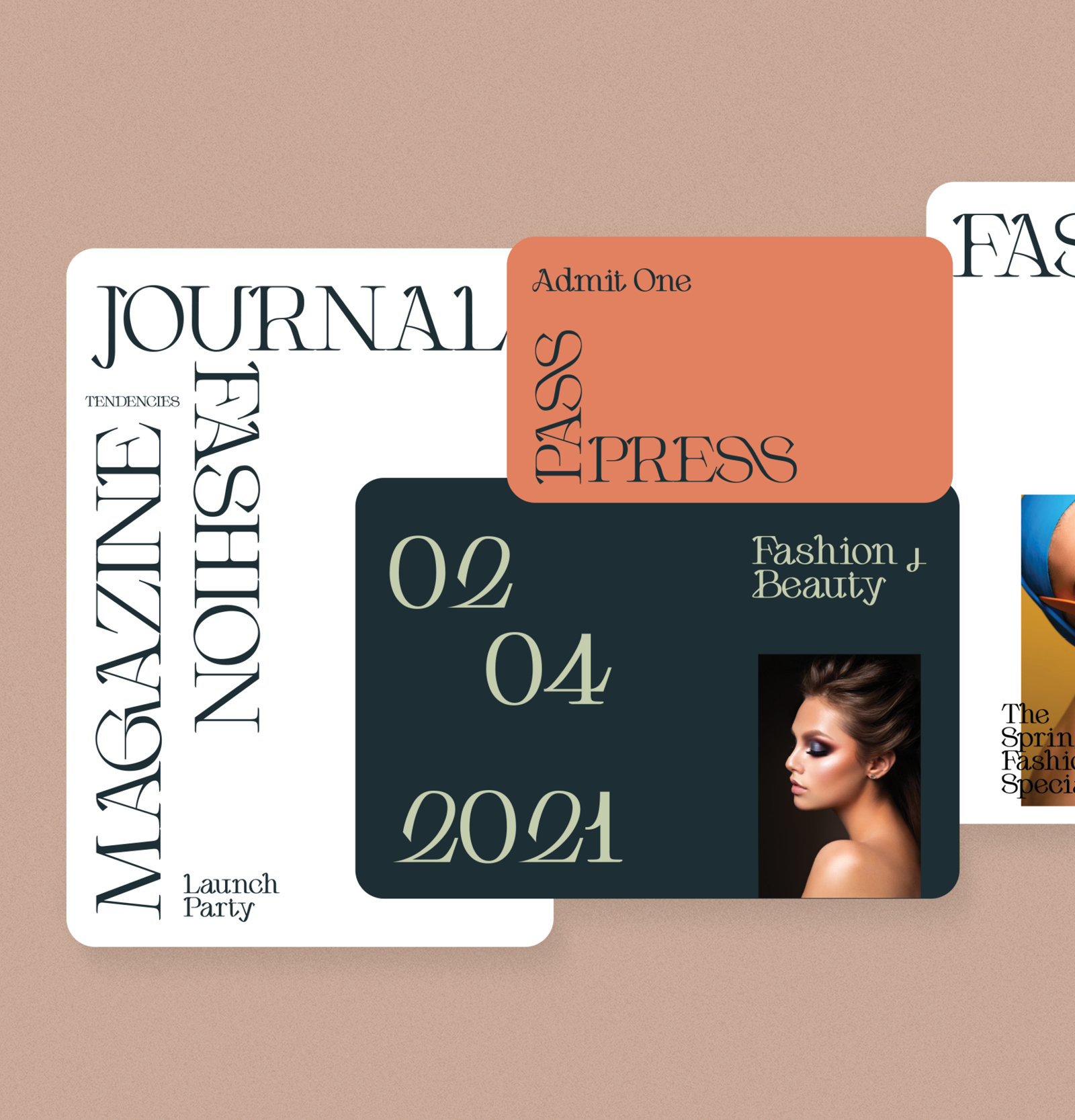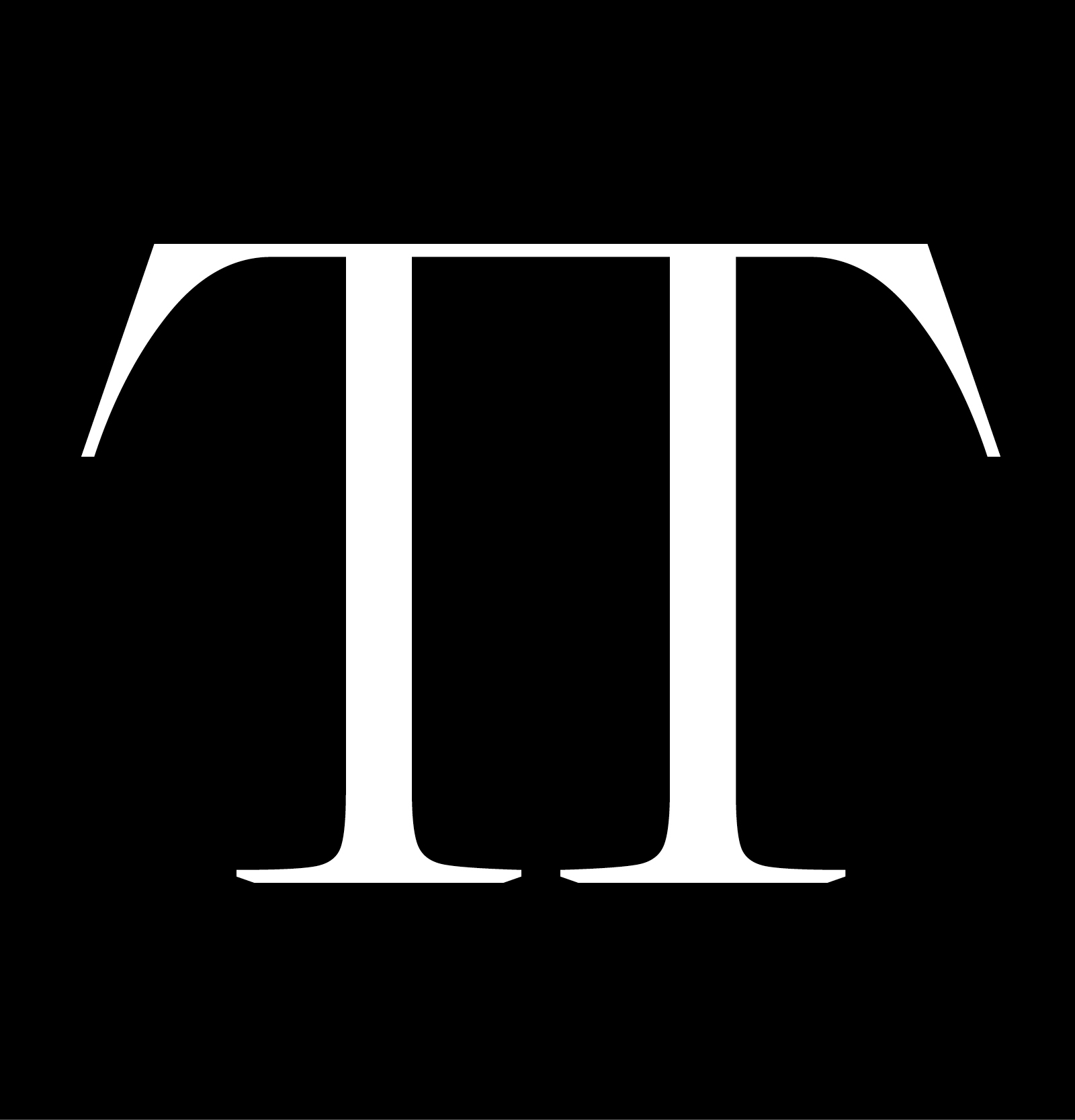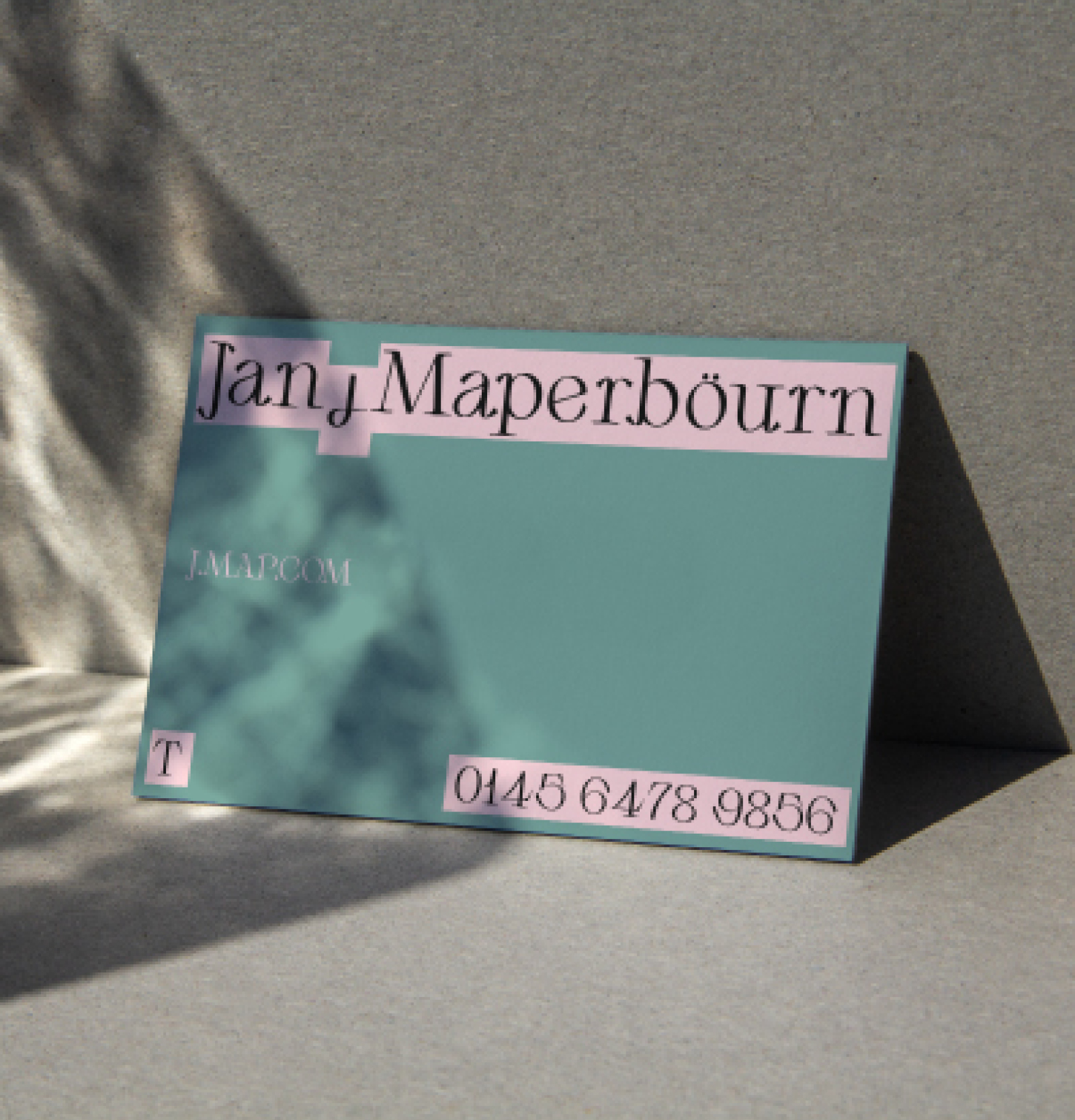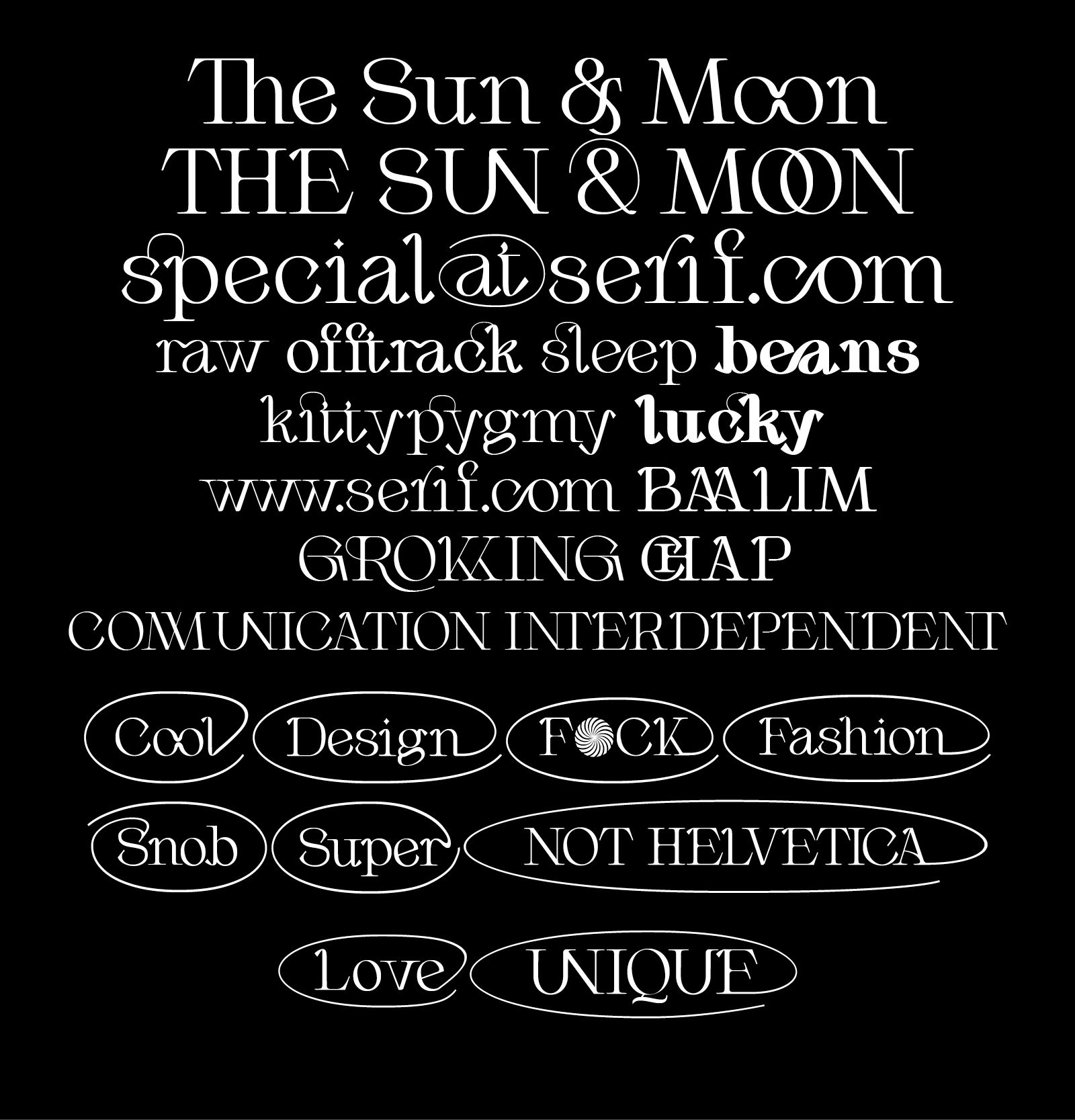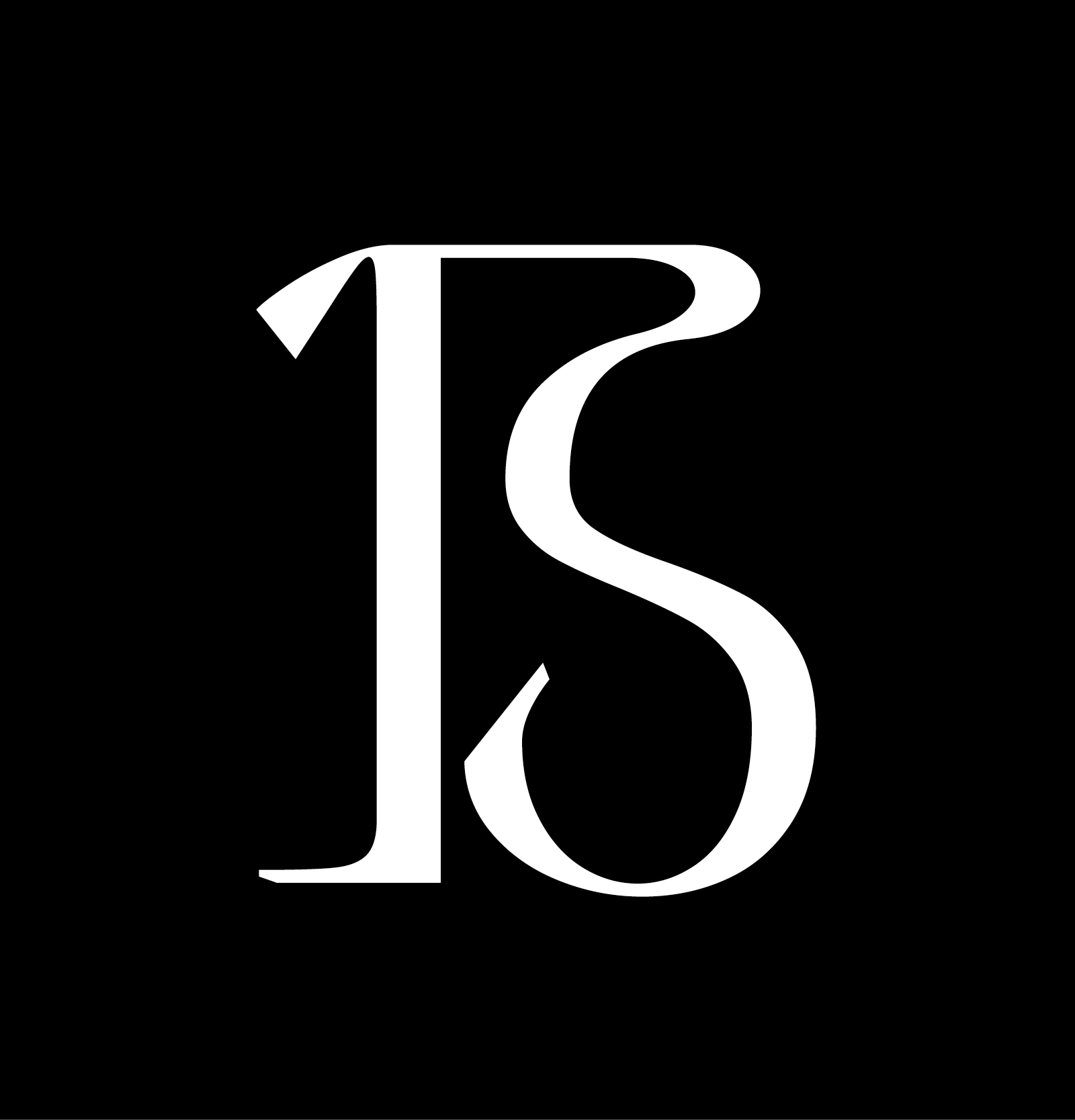
Aupress
3 Weights
Light
Regular
Bold
Aupress is a contemporary luxurious serif typeface featuring large open counters, and curved, round forms, creating a modern & elegant glyph set. Designed to be a stylish modern face perfect for communication and branding projects.​